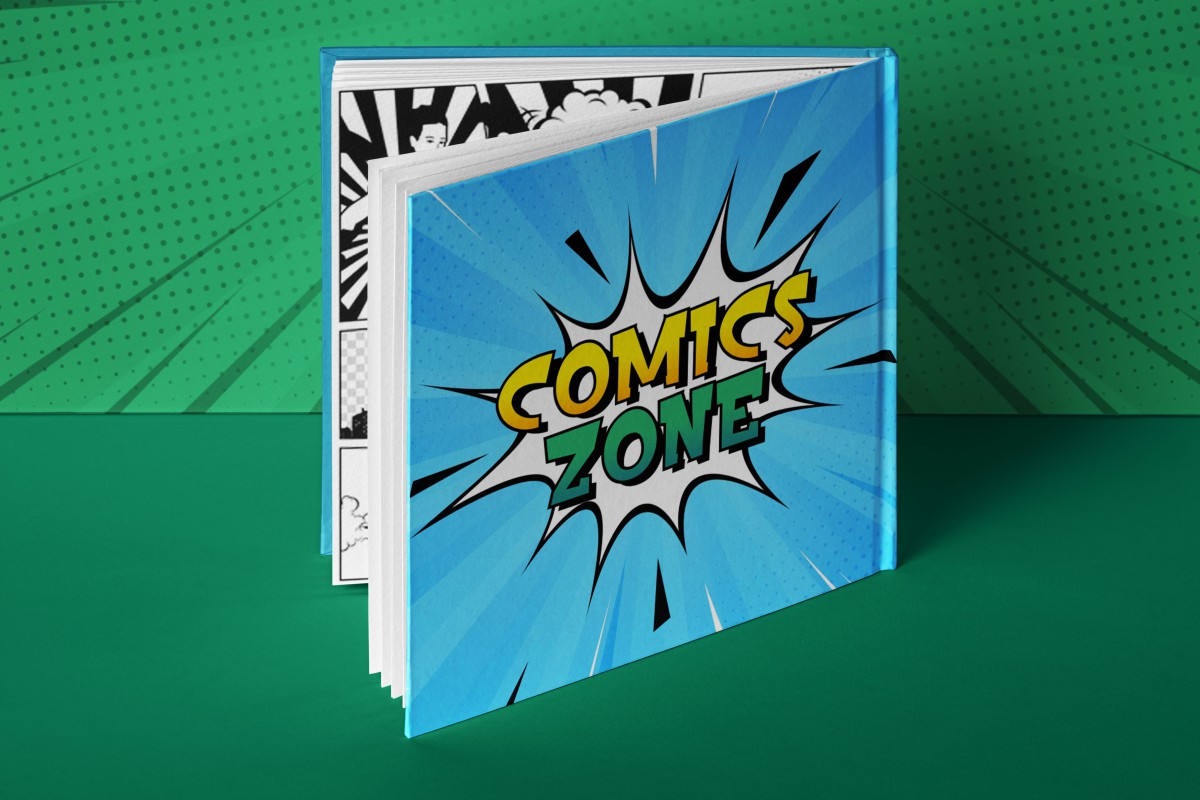
Captain Jerry Font
Captain Jerry Display Font
This is a playful comic style inspired by several comic and cartoon movies and its heroes. This font is specially made for creating fun industries, party invitations, product packaging, posters, prints, kids related brands and many other projects. We made this font fun and modern to fit as many ideas as possible.
Captain Jerry Font is a comic sans display family font. It has a unique shape and effect with irregular thickness of the letters makes this unique. The font is suitable for brandings, banners, headlines, clothing, stickers, wall art writing etc.